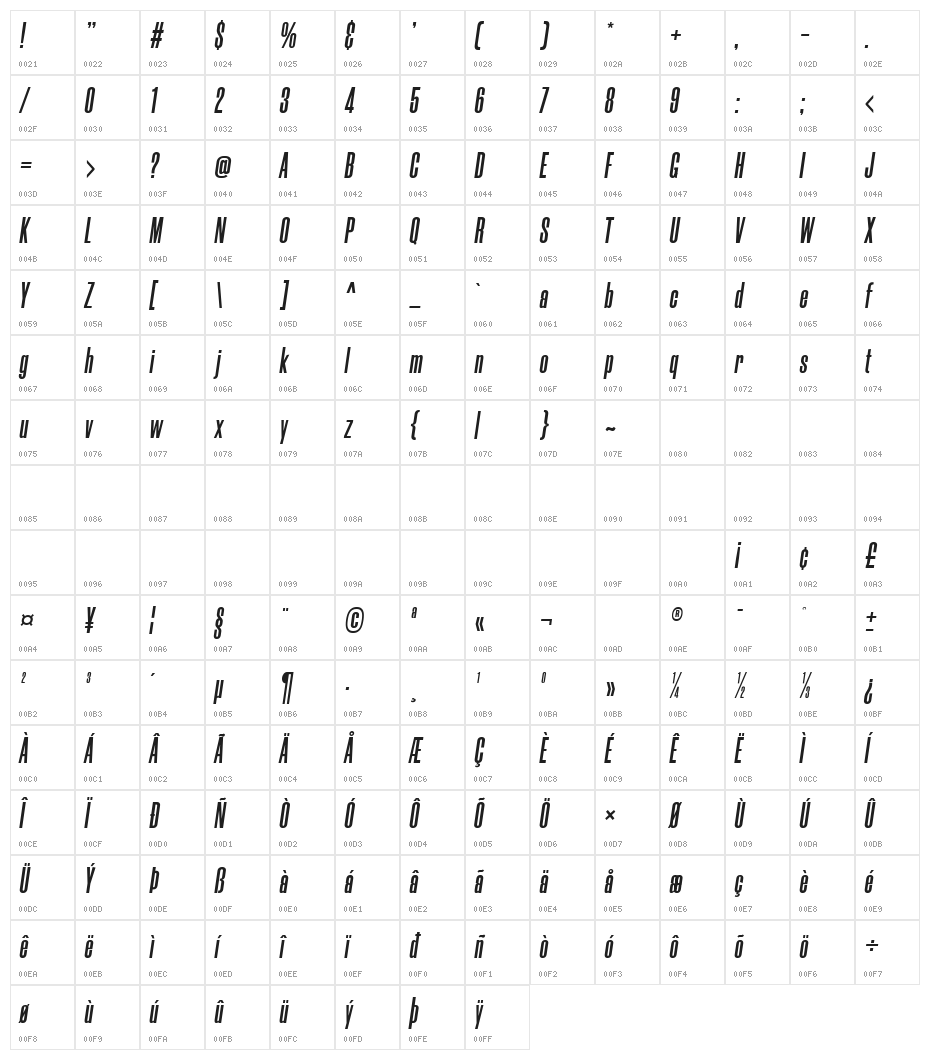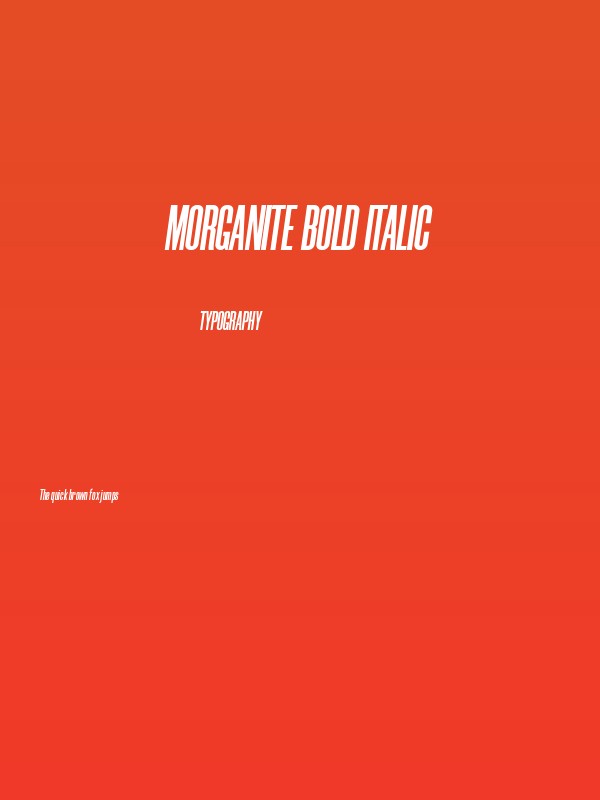
Morganite Bold Italic Font
Morganite Bold Italic Description
This font exhibits a bold and italicized style, characterized by its strong, slanted letterforms that convey a sense of dynamism and modernity. The uppercase and lowercase letters maintain a consistent weight, ensuring readability while adding a touch of elegance. The numerals are clear and distinct, complementing the overall aesthetic. Special characters are well-integrated, offering versatility for various design needs. The font's condensed width and tight character spacing enhance its impactful appearance, making it suitable for attention-grabbing headlines and titles.
Proposed ProjectsIdeal for branding, advertising, posters, and editorial design where a strong, modern impact is desired.